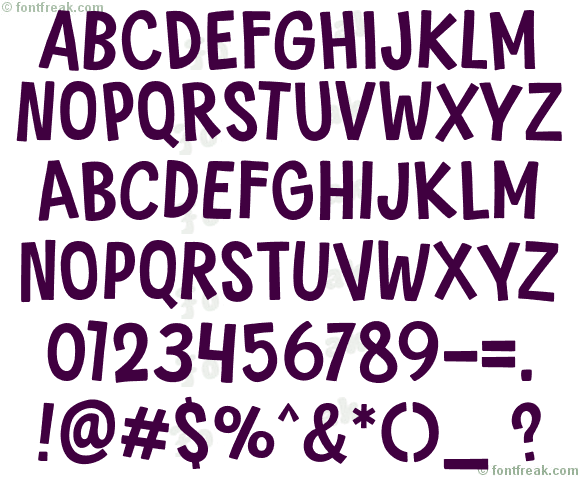
Reselu
The Reselu font, designed by Syaf Rizal, is a captivating display typeface that combines modern aesthetics with a unique flair. This font is categorized as a sans-serif, making it versatile for various design projects. The visual characteristics of Reselu include a balanced stroke weight that provides a sturdy, yet approachable appearance. The letterforms exhibit a moderate contrast, ensuring clarity while maintaining a stylish edge. The spacing is well-considered, contributing to legibility and making it suitable for both headers and body text. Its playful and slightly rounded shapes add a friendly touch, enhancing its overall appeal.
Reselu is an excellent choice for a variety of creative applications. It shines in wedding invitations, where its charming style can evoke a sense of celebration and love. Additionally, it is perfect for movie posters, capturing attention with its bold presence and modern feel. Restaurant menus can benefit from Reselu's inviting look, making dishes feel more appealing and enticing. Small business branding, especially for cafes or boutiques, can leverage this font to create a memorable identity that resonates with customers. Graphic designers and content creators will find Reselu font free download an invaluable resource for projects that require a contemporary yet warm touch.
What sets Reselu apart is its ability to balance personality with professionalism. While it is playful enough to draw in viewers, it retains the sophistication necessary for serious applications. This duality makes it a standout choice for those looking to make an impact, whether in print or digital mediums. By choosing Reselu, you're not just selecting a typeface; you're embracing a design element that speaks to creativity and style.